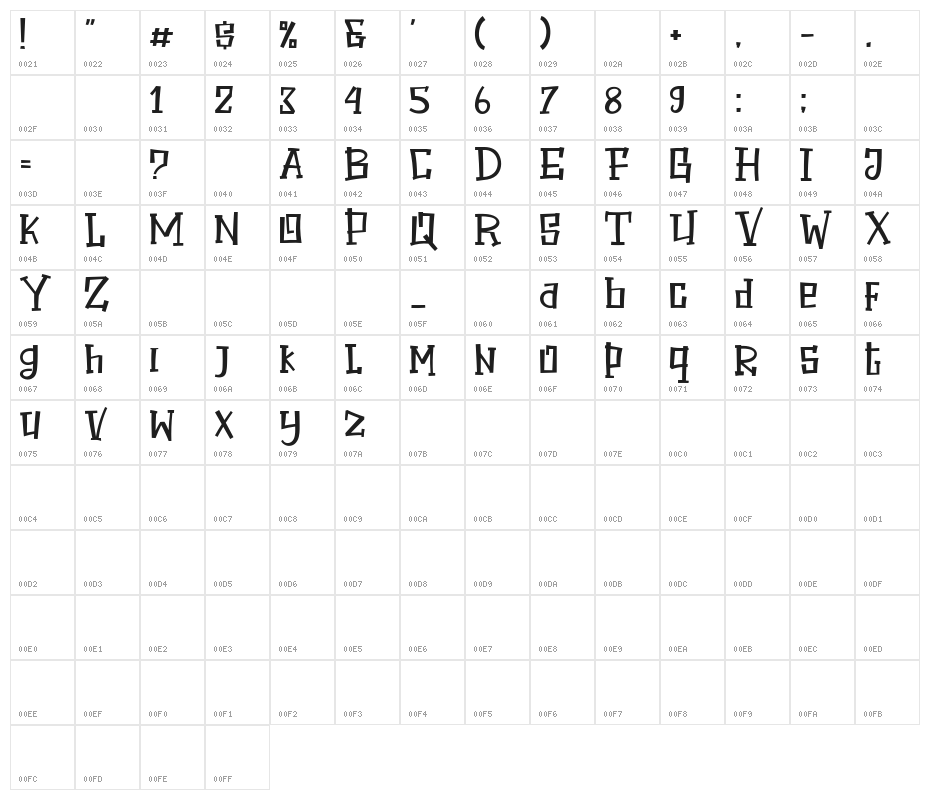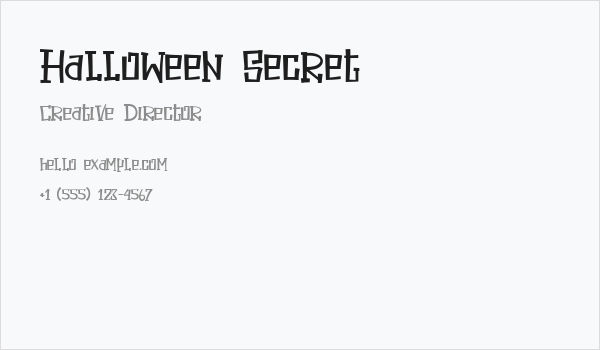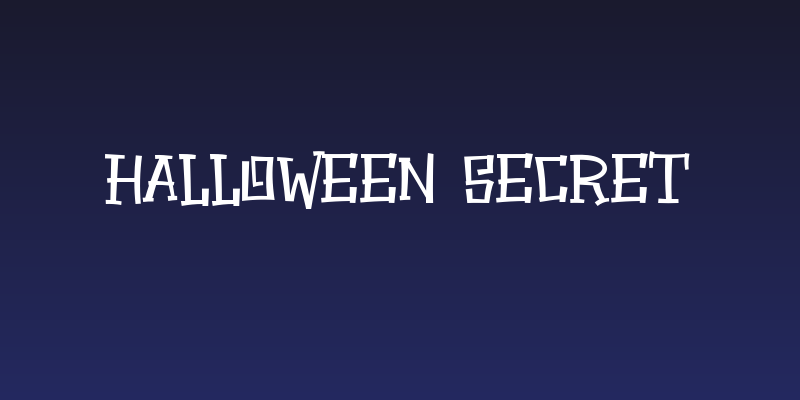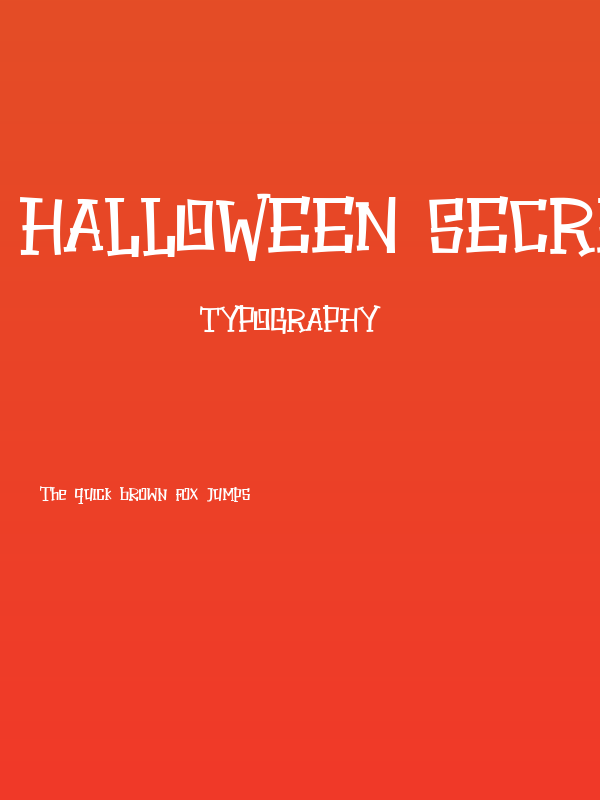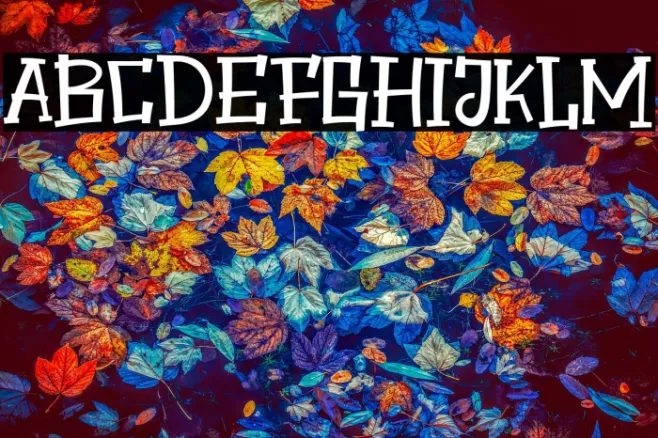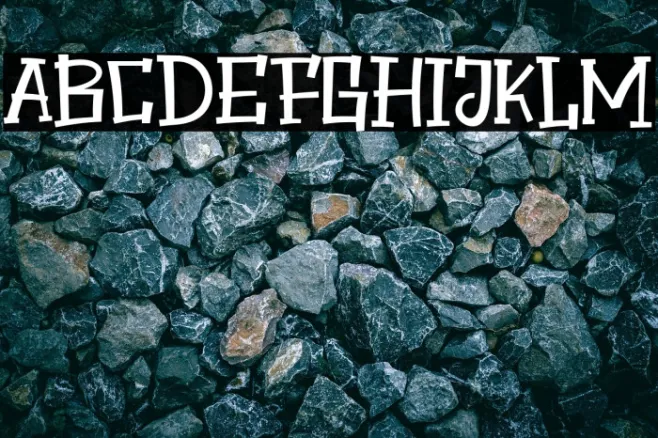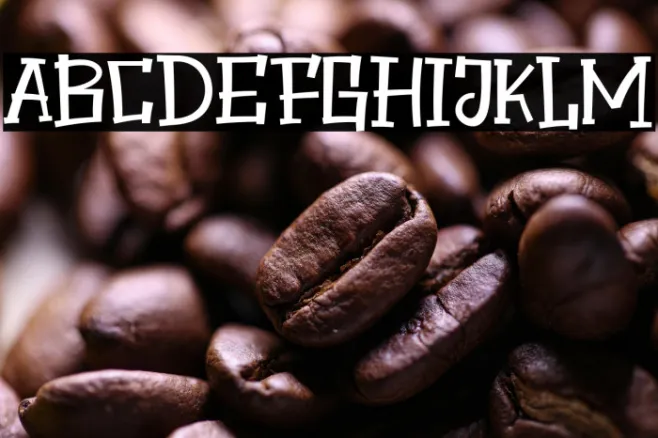
Halloween Secret Font
Halloween Secret Description
This font features a playful and slightly spooky design, perfect for Halloween-themed projects. The letters have a hand-drawn, uneven quality with exaggerated serifs and varying stroke widths that give it a whimsical yet eerie appearance. The uppercase and lowercase letters maintain a consistent style, with quirky angles and curves that add character. Numbers and special characters are designed to match the overall theme, making it versatile for creative uses. The font's unique style is both eye-catching and memorable, ideal for capturing attention in festive designs.